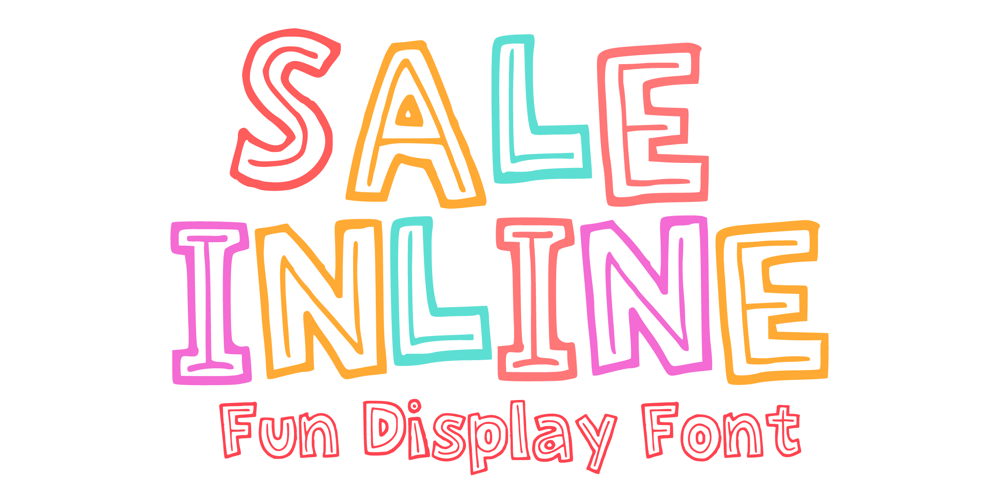
Sale Inline
Sale Inline font
Sale Inline Font Family was designed by Gabriel Valentinus and published by Mvmet. Sale Inline contains 1 styles and family package options. Sale Inline is a fun and playful inline font. You can use it for anything ranging from t-shirts, kids’ book designs, greeting cards, stickers, and posters, or anything that needs a casual touch. Fall in love with its incredibly versatile style and use it to create lovely designs!